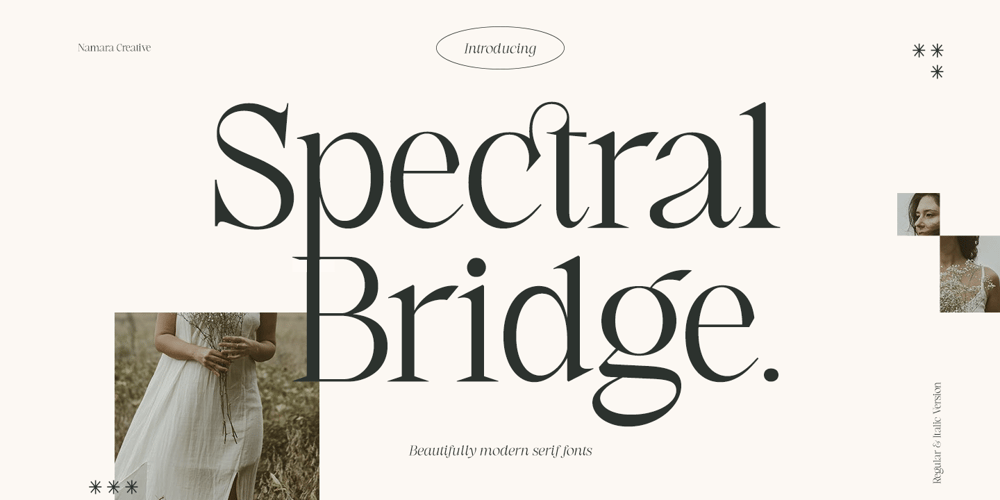
Spectral Bridge Font Family was designed by Toni Setiawan and published by Namara Creative Studio. Spectral Bridge contains 2 styles and family package options. Spectral Bridge is a strong serif inspired by timeless elegance and luxurious appeals. Feel free to mix & match with style, alternates, and also ligatures. Combined sharp and soft appeals, make a versatile typeface that will fit any project such as branding, lettering, quotes, print design, and much more.